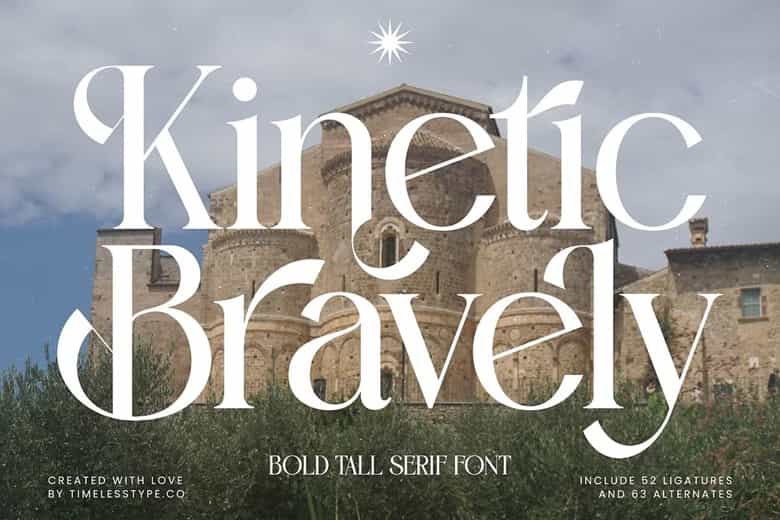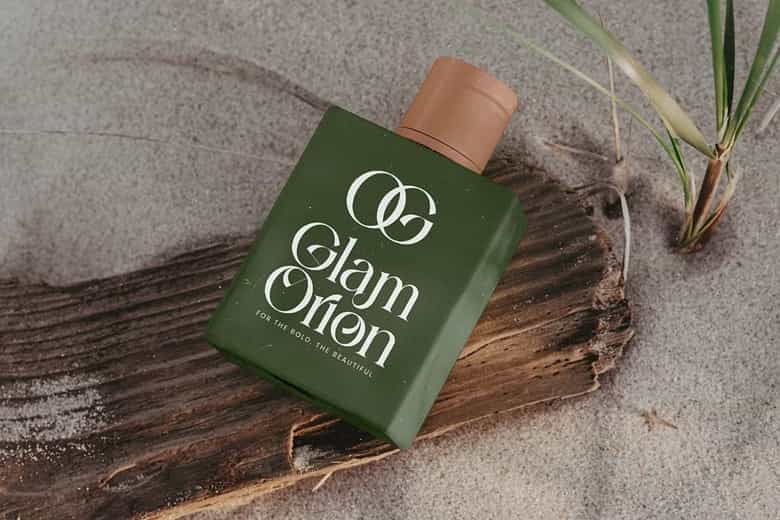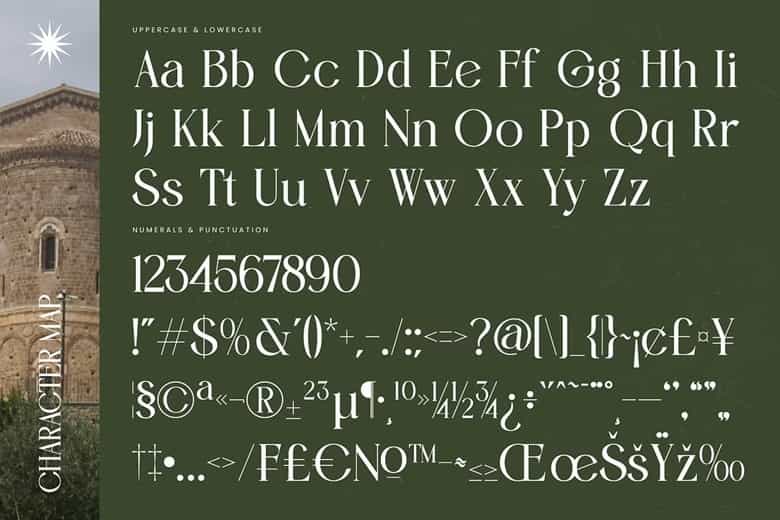
Kinetic Bravely is a bold modern serif typeface with multiple alternates and quite a few unique shapes. Suitable for any projects such as: logos, branding projects, homeware designs, product packaging, mugs, quotes, posters, shopping bags, t-shirts, book covers, name card, invitation cards, greeting cards, label, photography, watermark, special events and every other luxury and beautiful project you have.